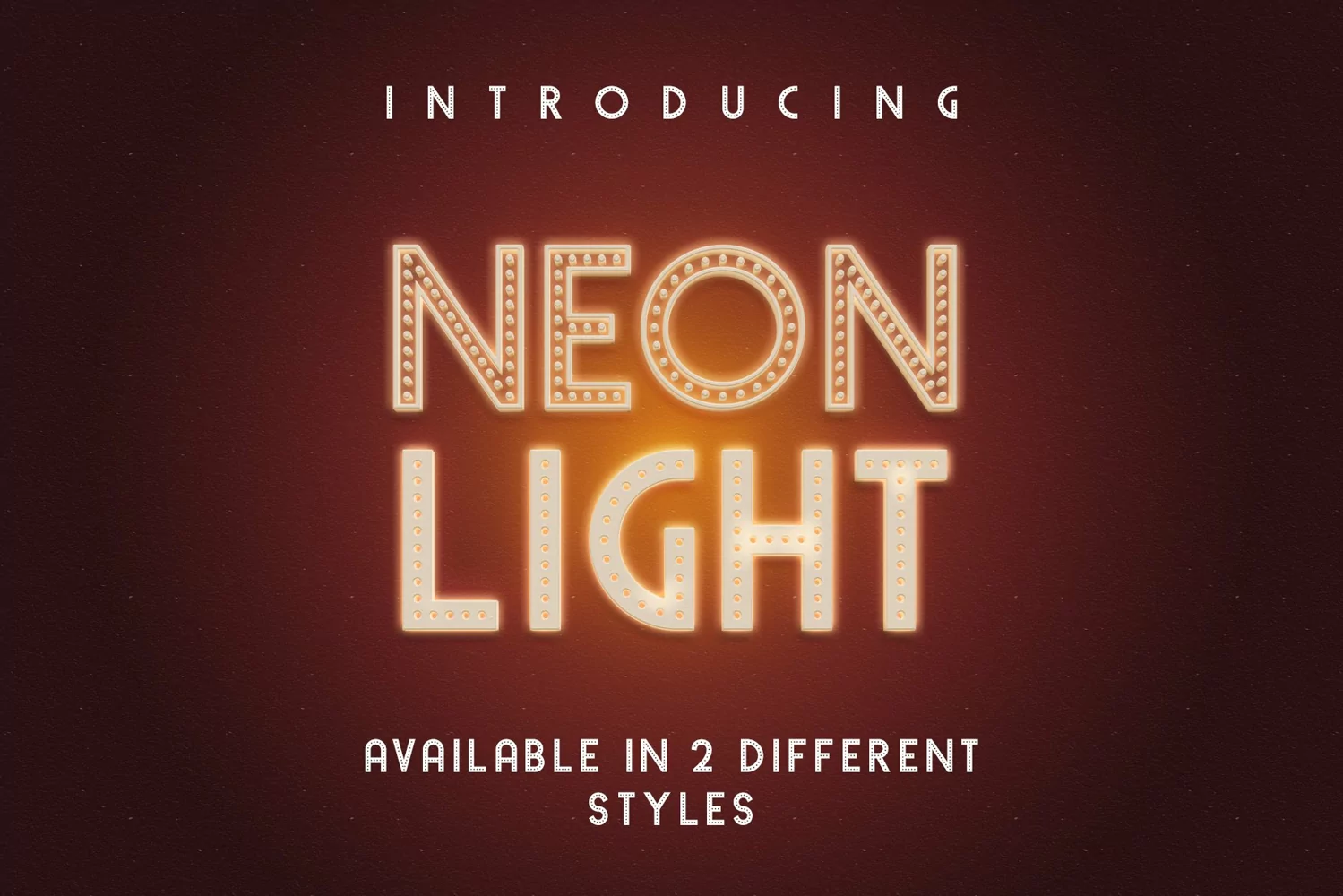
Get a two for one with Neon Lights. Styled after it's namesake, Neon Lights has a fun vibe to it! Access both font styles simply by using uppercase or lowercase text. Most definitely unique, this font has great style and will create a big statement for your designs and projects!